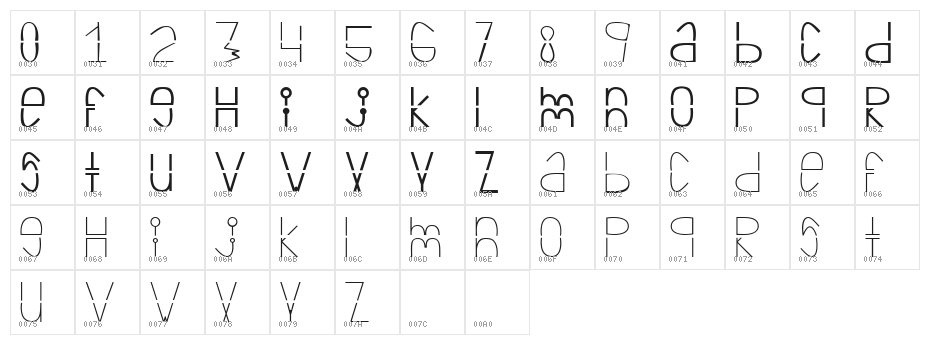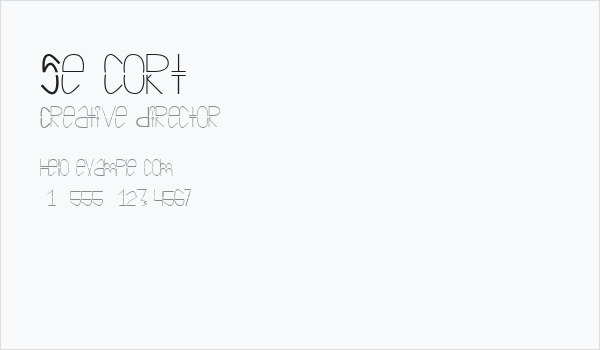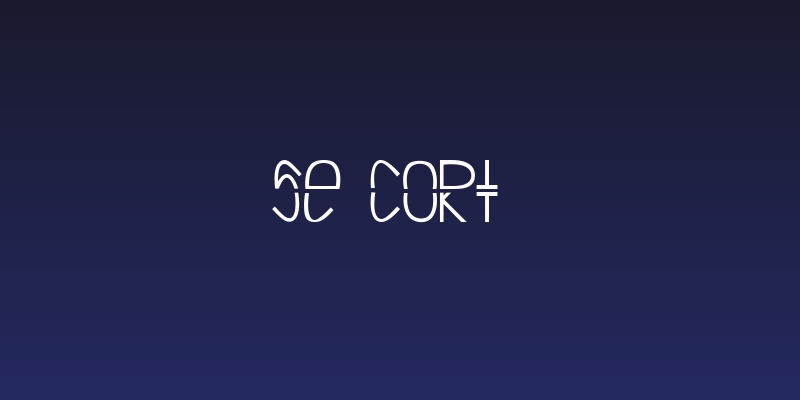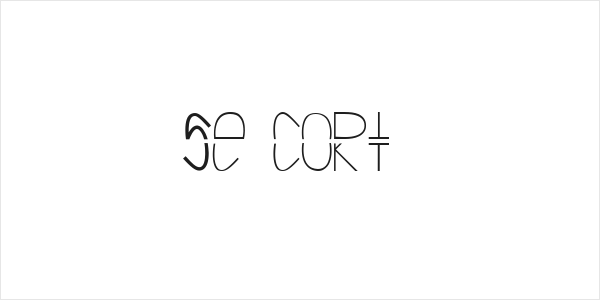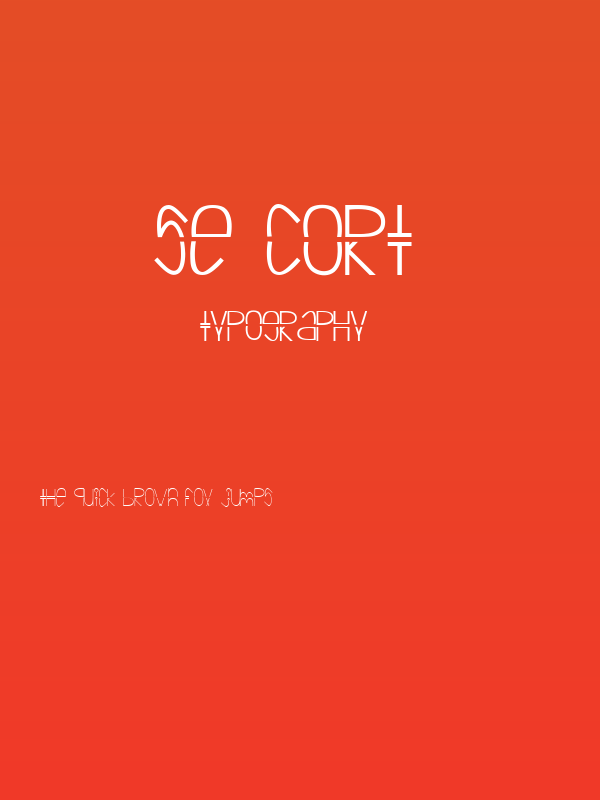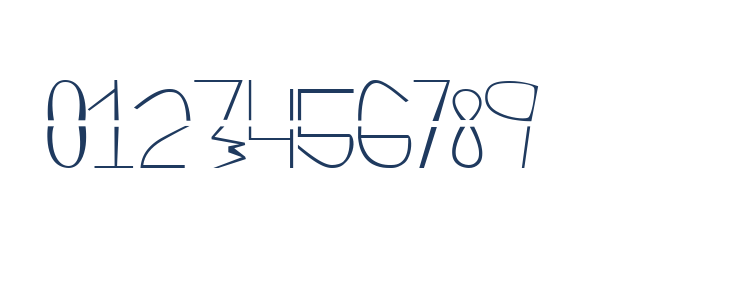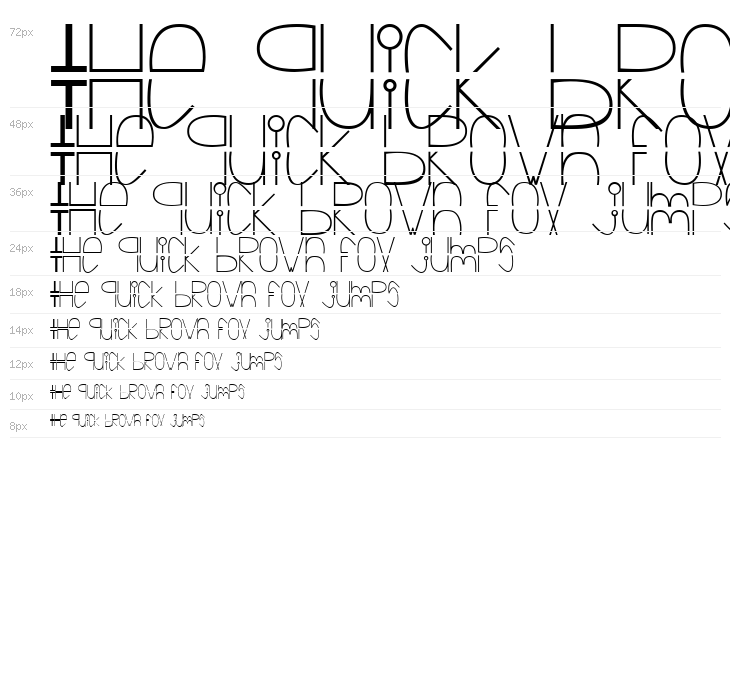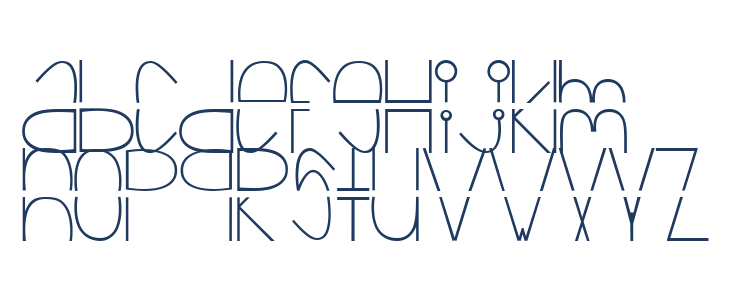
Se cort— Font
Se cort— Description
This font features a unique and futuristic design with geometric shapes and unconventional letterforms. The characters are constructed with a mix of straight lines and curves, creating a visually intriguing and modern appearance. The uppercase and lowercase letters maintain a consistent style, with some characters featuring distinctive loops and angles. The numerals follow the same geometric theme, adding to the overall cohesive look. Special characters are designed to match the font's aesthetic, making it suitable for creative and avant-garde projects.
| Proposed Projects | Ideal for sci-fi themed designs, modern branding, innovative product packaging, and digital media projects. |